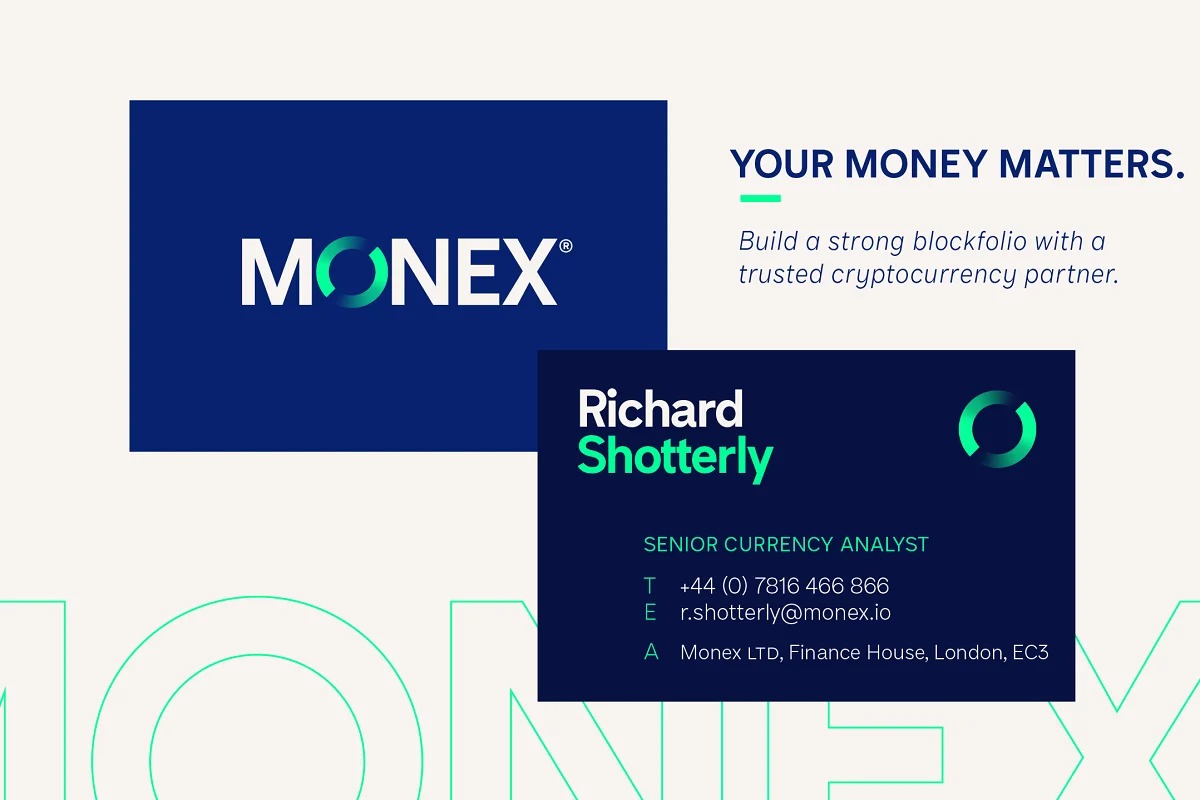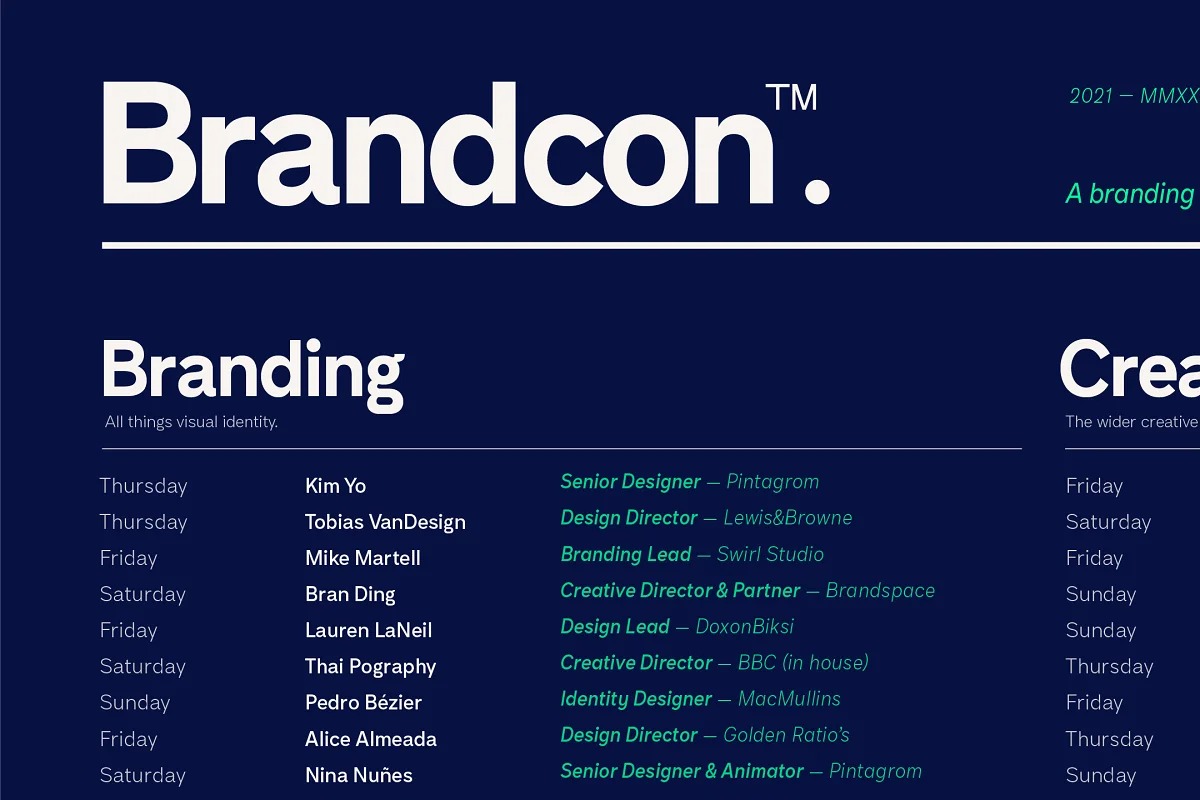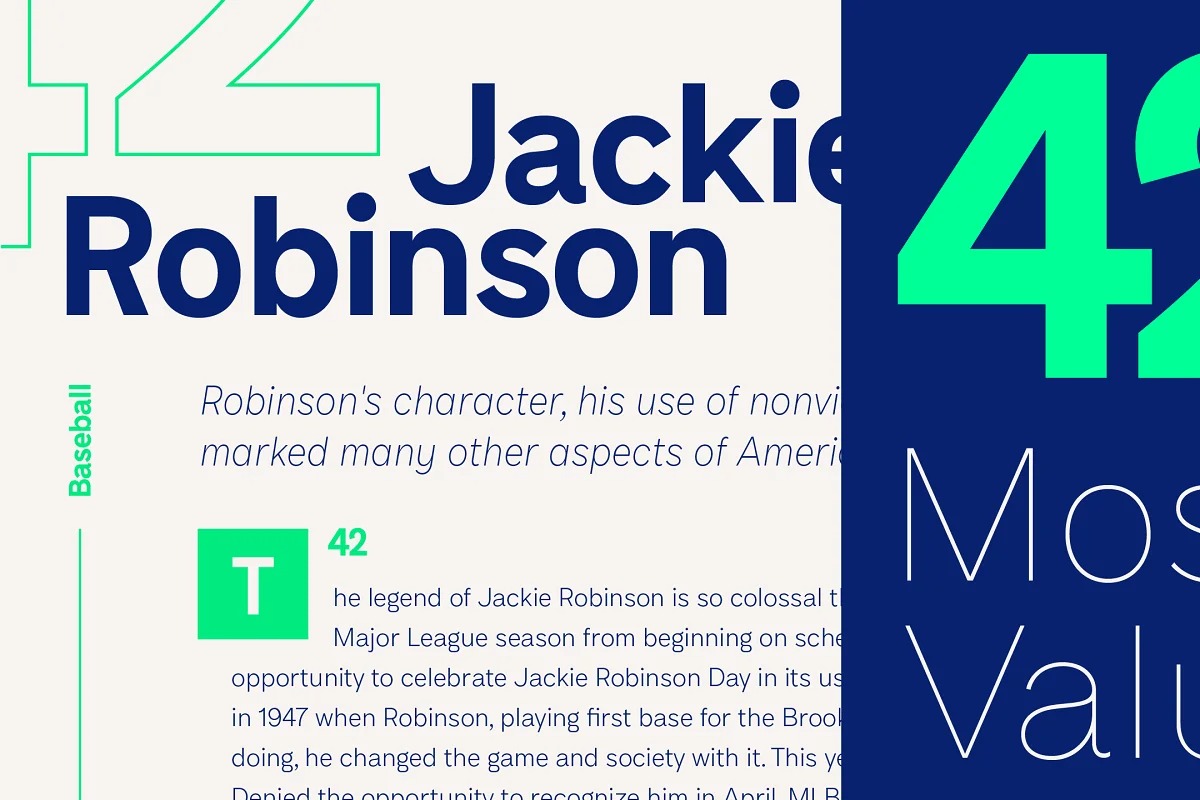
Compita Font Family
Compita Sans Serif Font
It’s a modern luxurious sans serif typeface from designer Studio Buchanan, suitable for projects conveying classiness, superiority and modernity. It has some over-emphasised features and terminal endings which help to create its friendly personality, but sits them on a slightly condensed overall width. Together they help balance each other out, creating a face that feels both affable and professional. Aff-essional perhaps?
The character set contains everything the modern day designer needs, including diacritic support for over 30 languages. And It’s packed full of the usual opentype features (that most will probably ignore) – Small caps, multiple number sets, and discretionary ligatures, to name just a few.
Whether it’s deployed as a display face, or as the dependable choice for text, Compita is useable across multiple disciplines. Set in online, on screen or in print – it’s proof that not everything has to be Montserrat or Raleway…